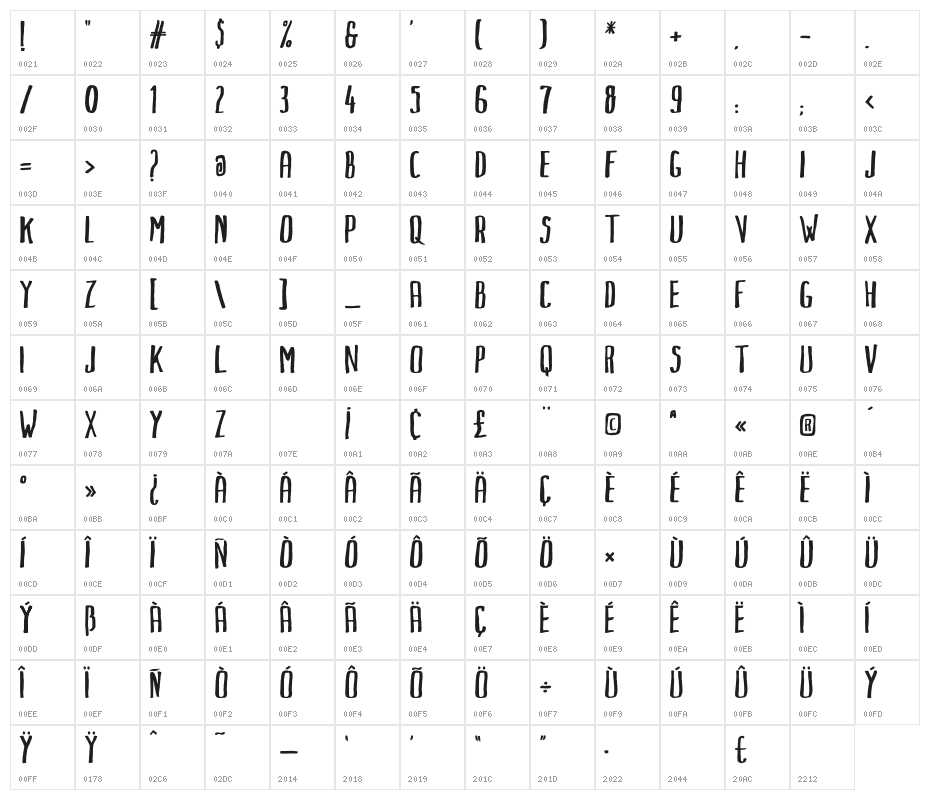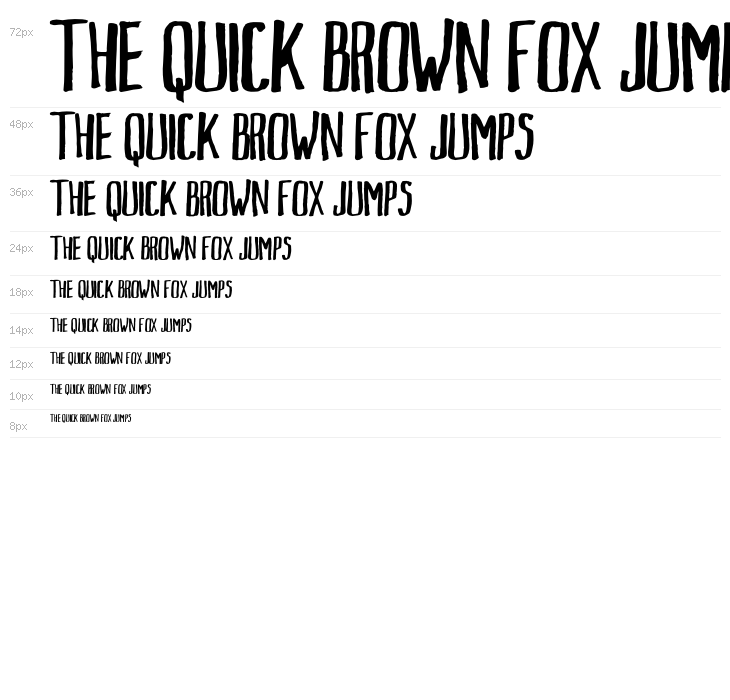
MarkusInk Font
MarkusInk Description
This font exudes a bold, hand-drawn aesthetic with an organic and slightly irregular appearance, reminiscent of brush strokes. The characters are tall and narrow, with a playful yet assertive style. The uppercase and lowercase letters maintain a consistent height, contributing to a cohesive look. The numbers and special characters follow the same artistic style, ensuring uniformity across all glyphs. This font's unique character is ideal for projects that require a touch of creativity and individuality.
| Proposed Projects | Perfect for posters, branding, packaging, and any creative projects that benefit from a handmade touch. |